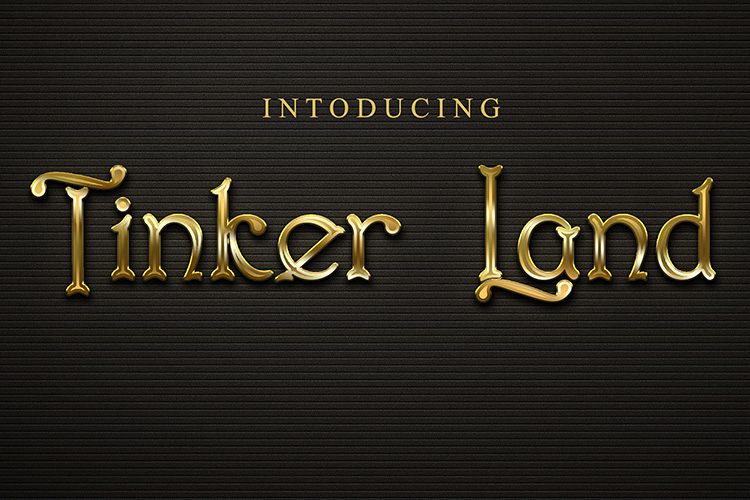
Tinker Land
Tinker Land is a unique font that is very suitable for use in various events or other works.
Tinker Land has unique characteristics so that it can bring a work to life and can represent the intent of the work.